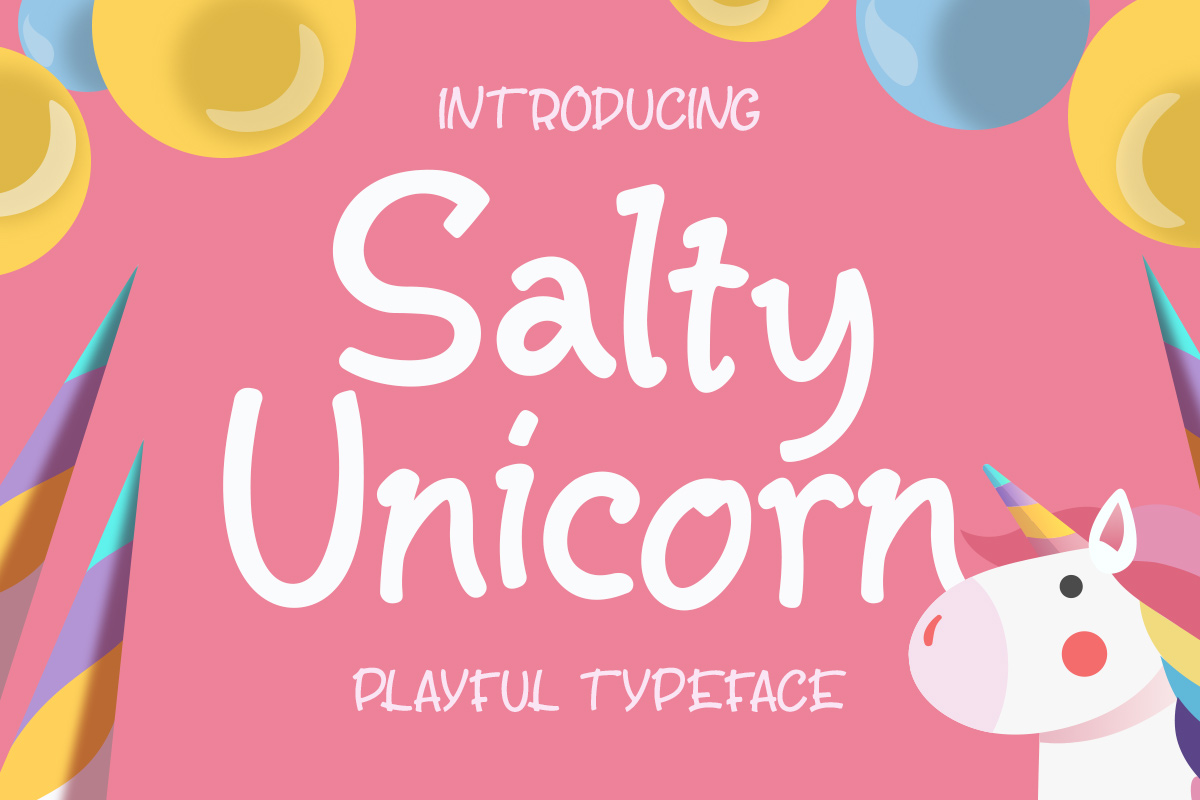
Salty Unicorn Font
Salty Unicorn Font is perfect for whimsical children's book covers, playful party invitation designs, magical toy store branding, quirky craft business logos, fun social media graphics, imaginative gaming interfaces, colorful candy packaging, creative workshop materials, fantastical event posters, and enchanting birthday party decorations. This delightful typeface brings magical charm to unicorn-themed products, rainbow ice cream parlors, fantasy-inspired clothing lines, mystical bakery signage, and dreamy children's bedroom decor.
Salty Unicorn Font is exciting because it perfectly captures the playful contradiction between edgy attitude and magical whimsy through its uniquely spirited letterforms. The font features bold, confident characters with unexpected magical flourishes that create a delightful balance between sassy personality and fantastical charm. Its distinctive design philosophy combines rebellious energy with enchanting details that appeal to both children and adults who embrace their inner magic. The font's playful rebellion and magical authenticity make it perfect for brands seeking to communicate fun-loving attitude, creative freedom, and unapologetic magical expression in their visual communications.
The Salty Unicorn Font family includes various magical styles: Sparkle, Rainbow, Glitter, Bold, Light, Script, Outline, Shadow, Decorative, Fantasy, Whimsical, and Enchanted variants. Each family member maintains the core magical DNA while offering different levels of whimsy for diverse fantastical design applications. The comprehensive font collection ensures consistent magical branding across children's products, fantasy-themed campaigns, and creative expression materials.
Whether you're creating children's brand identities, designing fantasy-themed marketing materials, developing magical website headers, or crafting whimsical promotional campaigns, Salty Unicorn Font delivers outstanding magical appeal and playful sophistication. The font's distinctive fantastical personality excels in children's logos, magical packaging design, fantasy applications, and creative projects where whimsical charm and magical authenticity are essential.